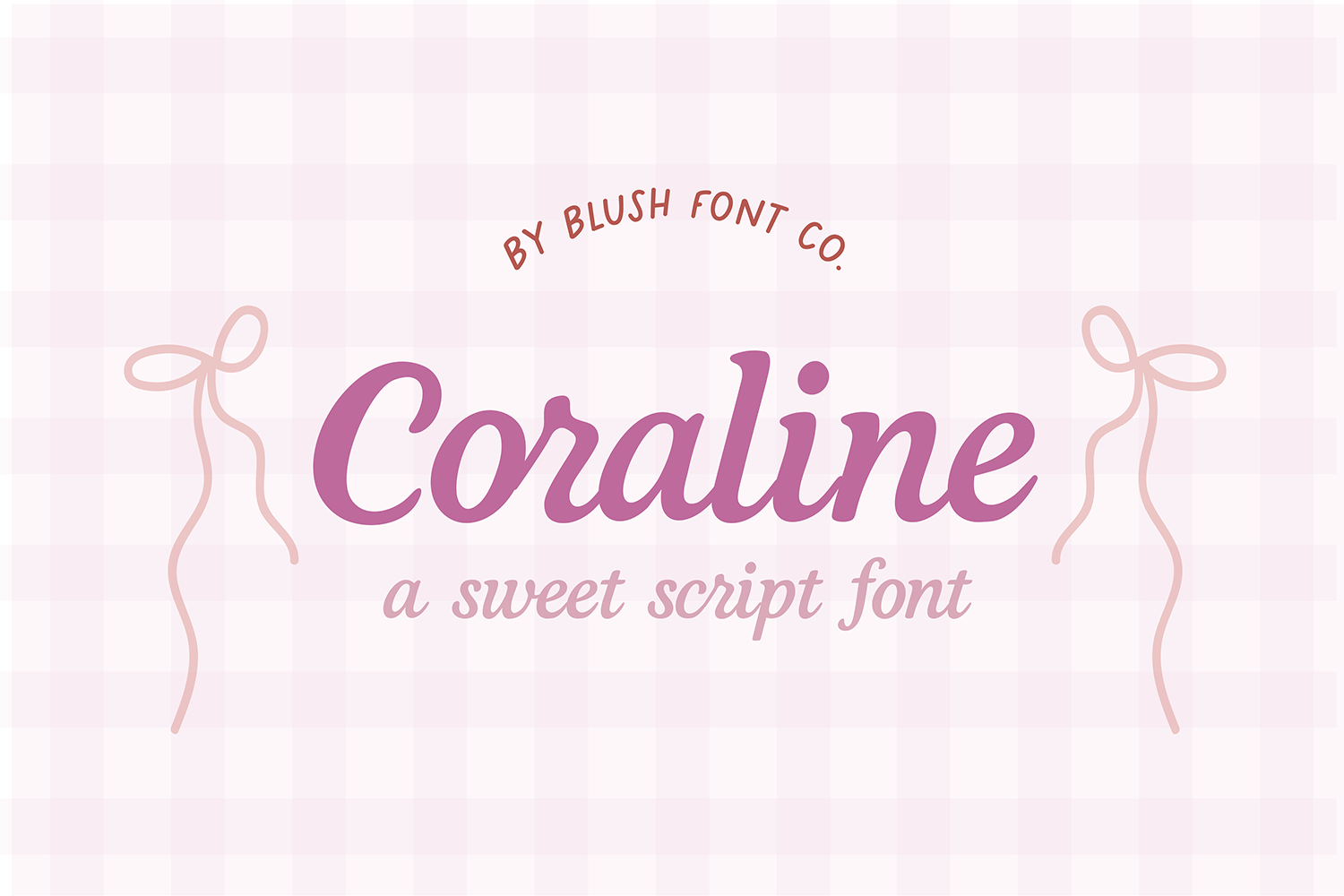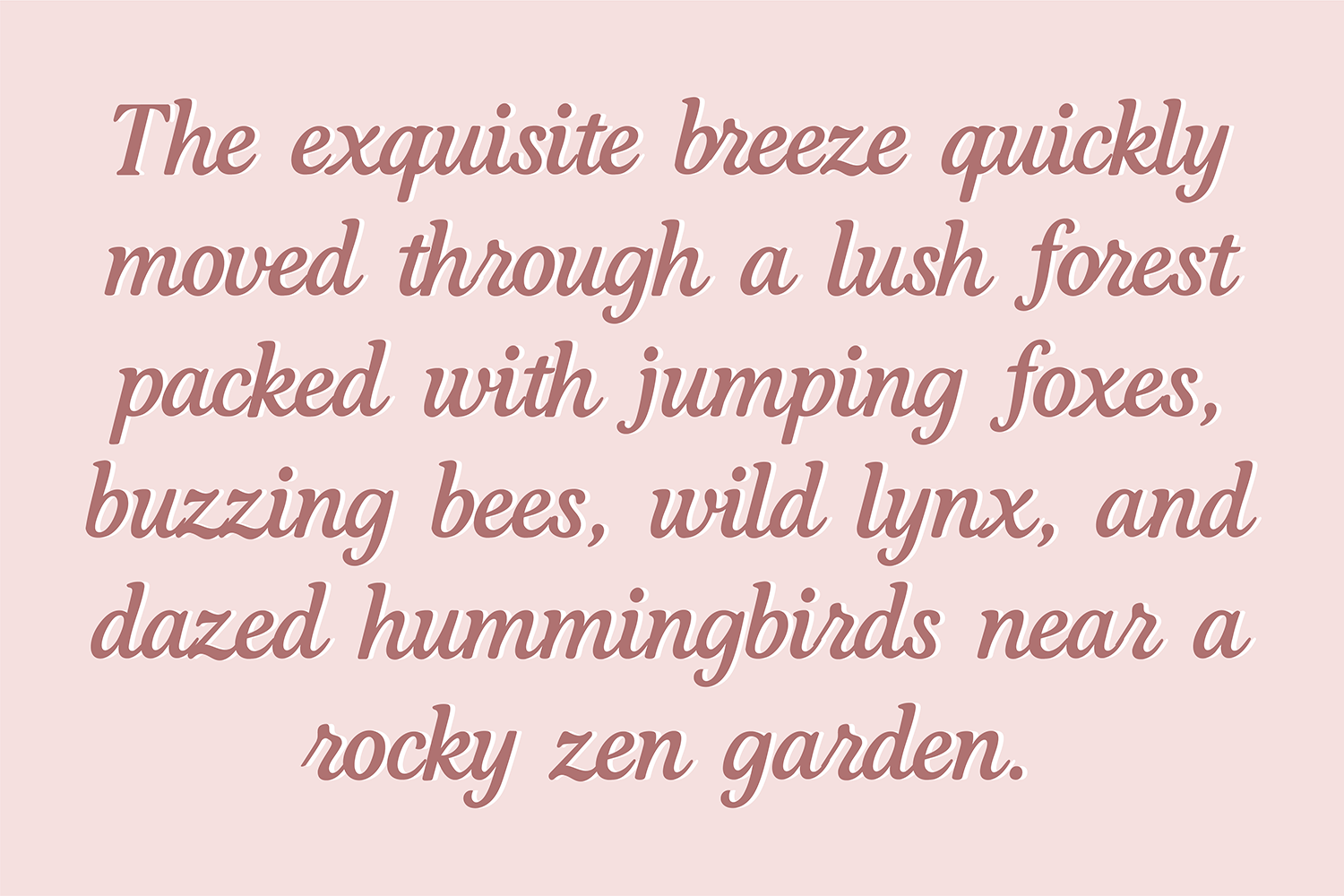
"Coraline"
A pretty modern script font.
This font is feminine cursive font that is perfect for social media or crafty projects. Use it for branding, crafts for decor, invitations, and more!